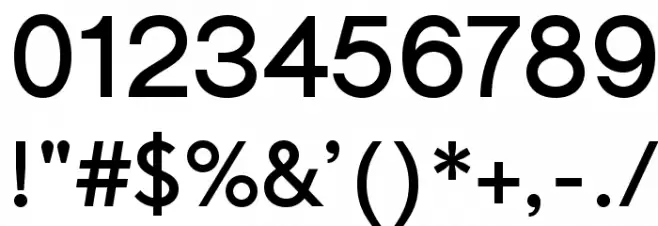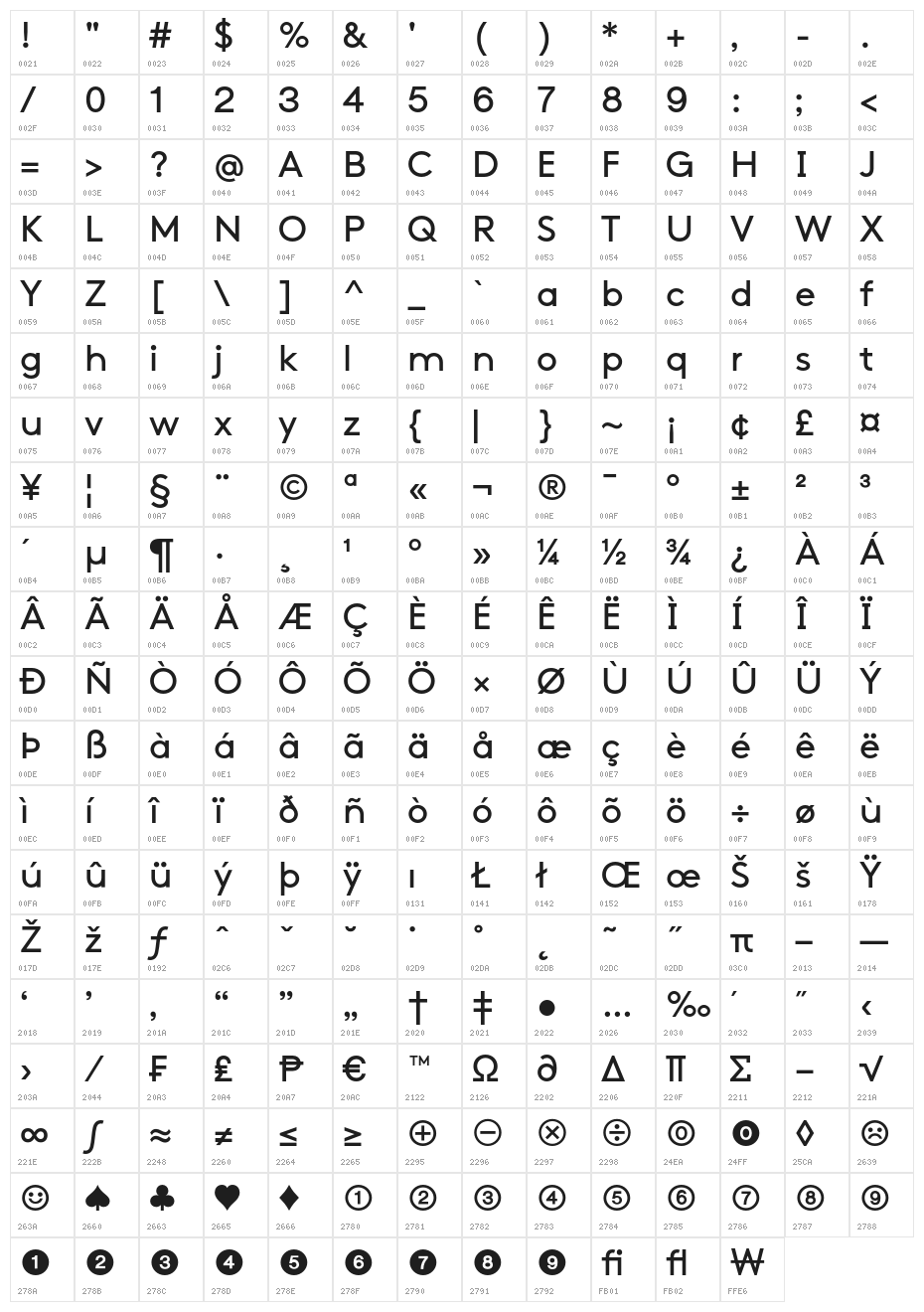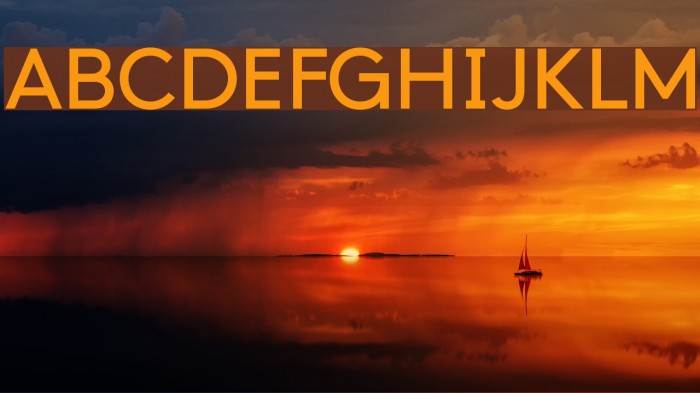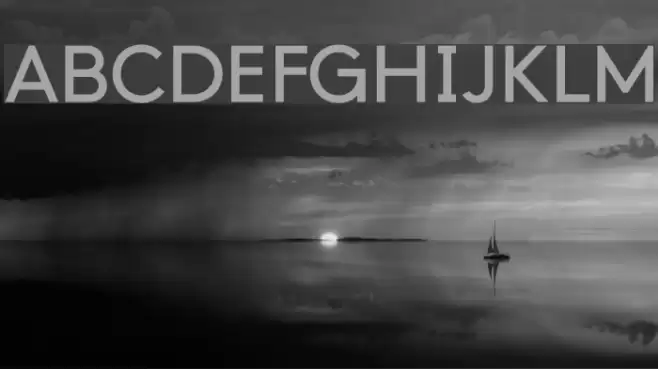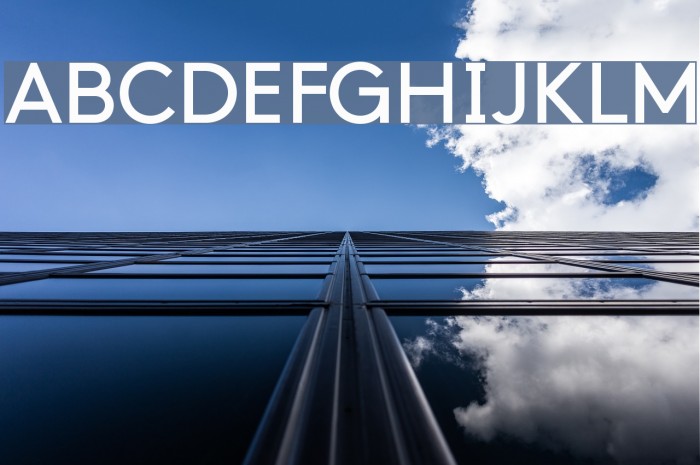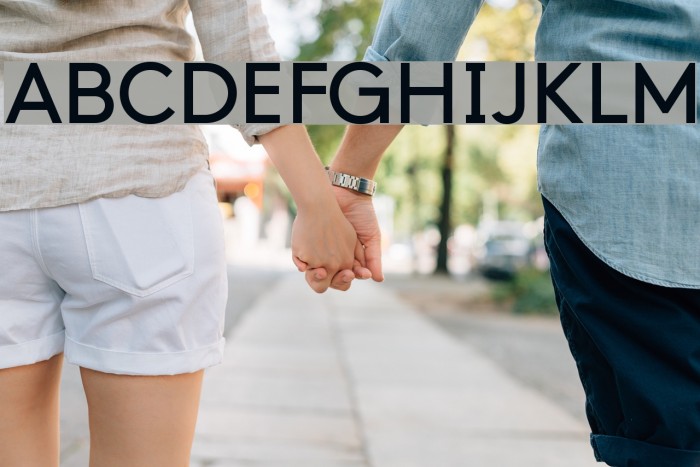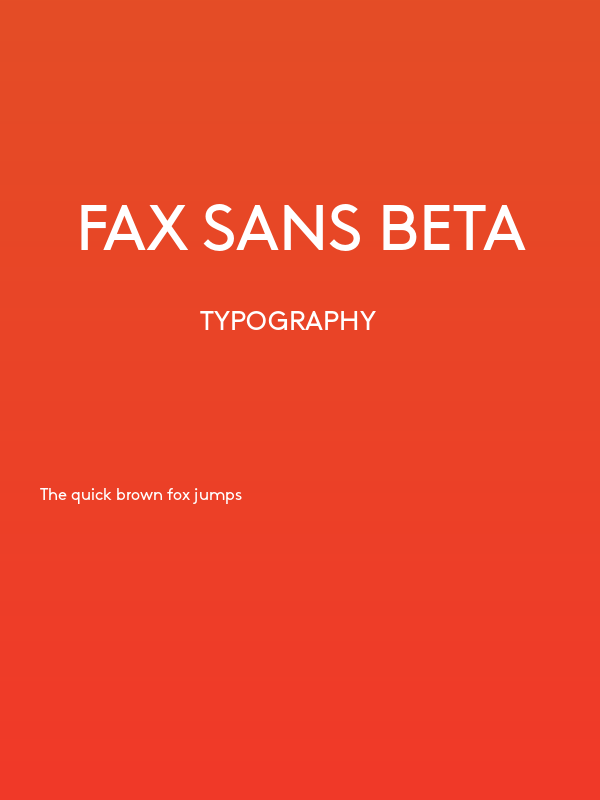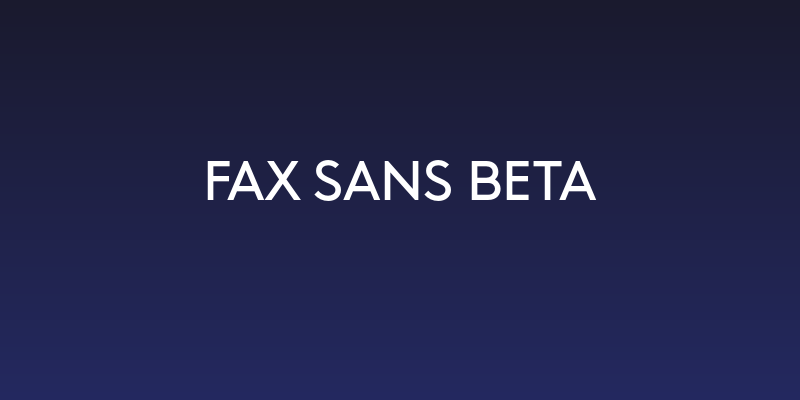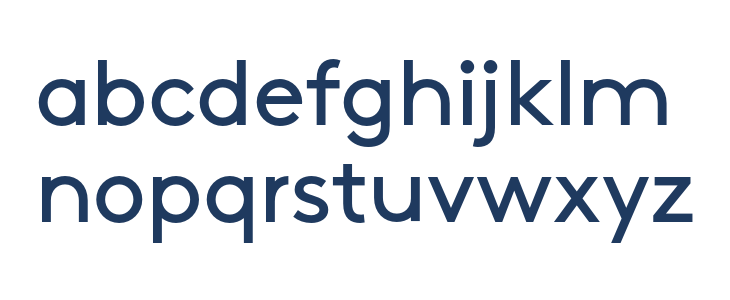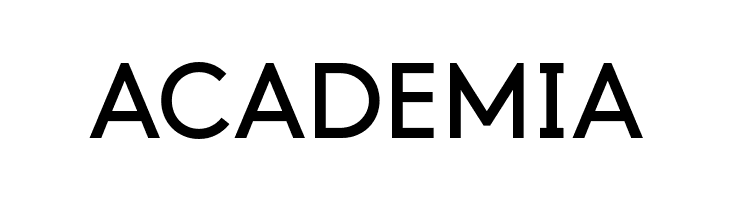
Fax Sans Beta Font
Fax Sans Beta Description
This font features a clean and modern sans-serif design, characterized by its geometric shapes and uniform stroke widths. The uppercase letters are bold and well-defined, while the lowercase letters maintain a consistent and harmonious appearance. The numerals are clear and easy to read, making them suitable for various applications. Special characters are included, providing versatility for different contexts. The overall design is minimalistic, with a focus on readability and simplicity, making it ideal for digital and print media.